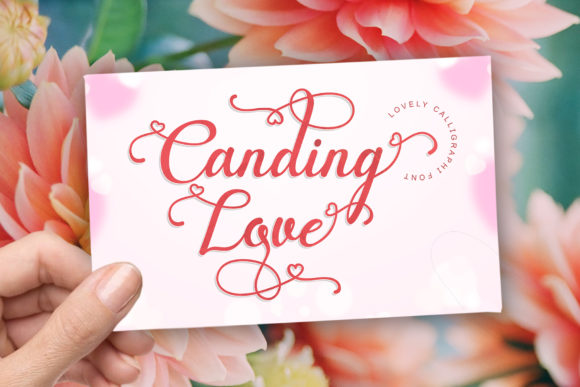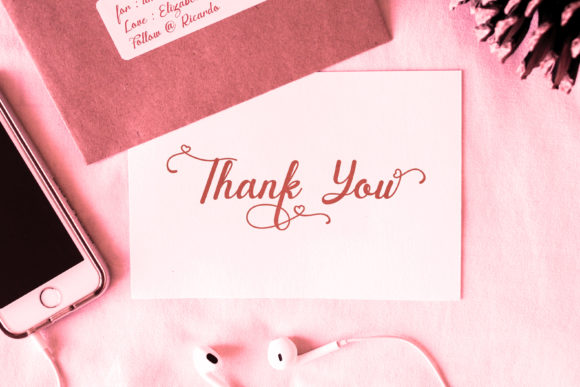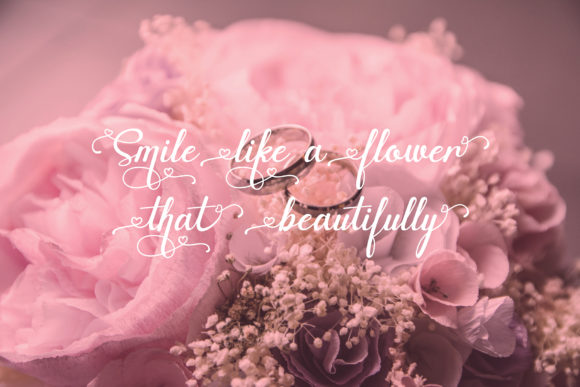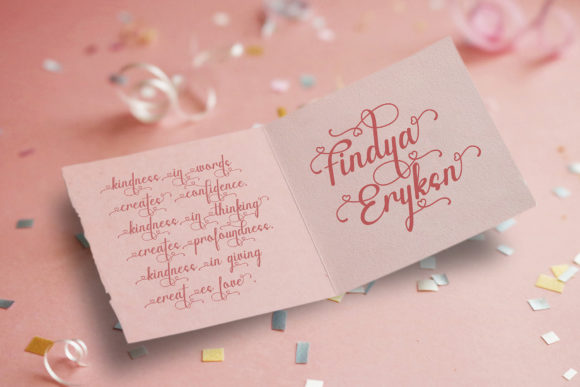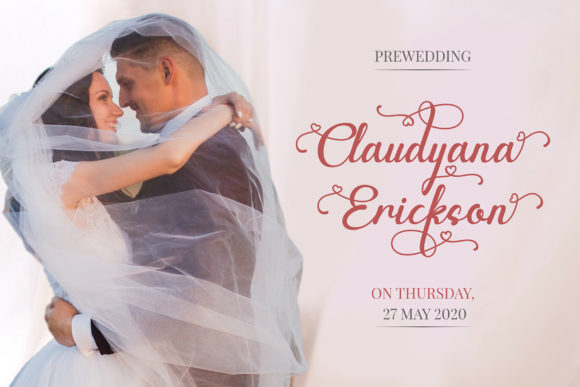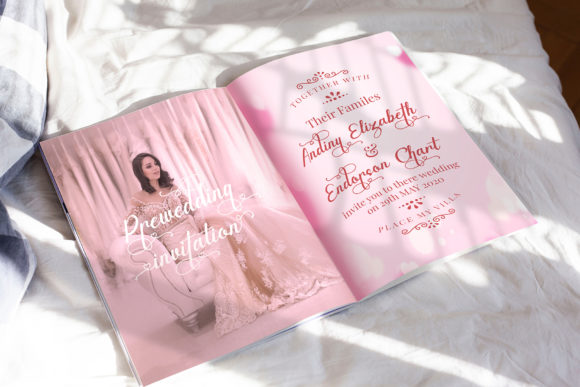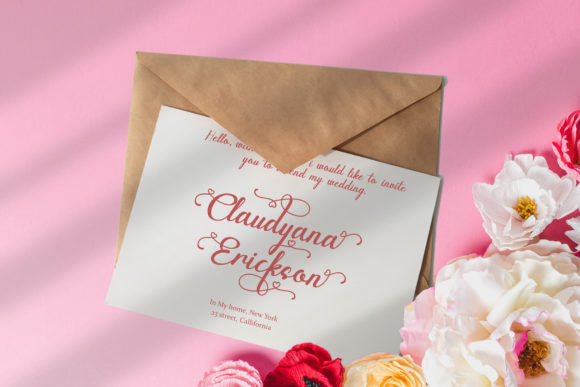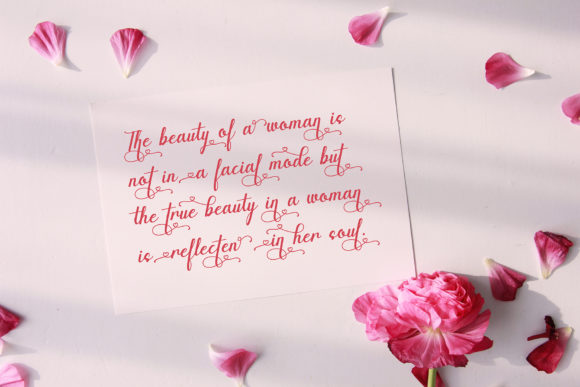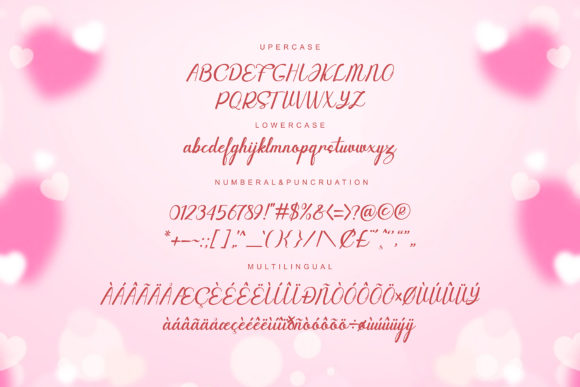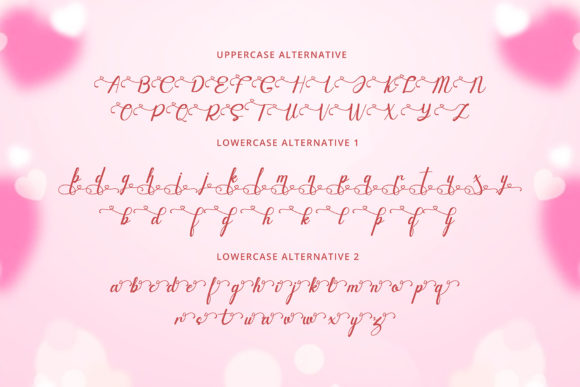
Canding Love Font
Canding Love is inspired by classic typography and brings its own unique style to any design project. This fantastic script font is best suited for headlines of all sizes, as well as for blocks of text that have both maximum and minimum variations. Whether it’s for web, print, moving images or anything else – Canding Love will look spectacular.